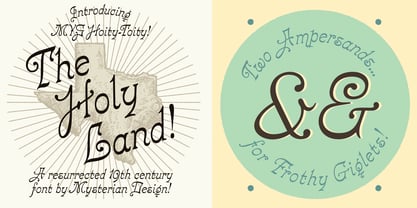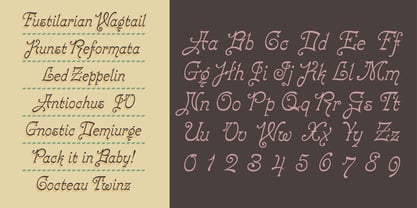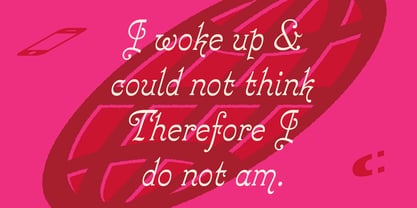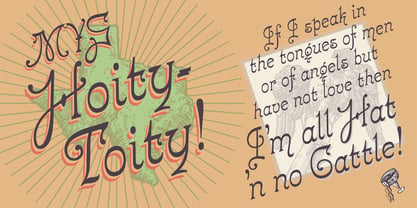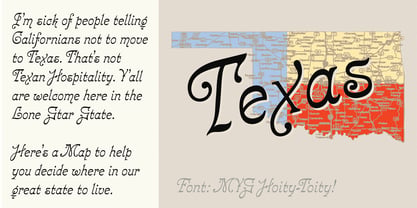
Hoity Toity
von MYSTERIAN
Die Schriftfamilie Hoity Toity wurde von Caleb East entworfen und von MYSTERIAN veröffentlicht. Hoity Toity enthält 1 Stile. Mehr über diese Familie
Hoity Toity is a contemporary revival inspired by a 19th-century specimen sheet. Developed from a single archival scan—weathered, incomplete, and beautifully imperfect—this design serves as both a reconstruction and reinterpretation. With limited reference material and missing characters, many glyphs were thoughtfully reimagined to extend the spirit of the original into a complete, functional typeface. Instead of strict historical replication, this revival strikes a balance between fidelity and creative interpretation, preserving the charm, texture, and idiosyncrasies of 19th-century letterforms while adapting them for modern applications. The result is a typeface that feels authentic yet refreshed: expressive in detail, grounded in tradition, and versatile for contemporary uses. Well suited for: - Heritage and vintage-inspired branding - Packaging and label design - Editorial headlines - Posters and print ephemera - Artisanal and craft-focused projects Character Set: - Uppercase & lowercase alphabet - Numerals - Basic punctuation & symbols - Two stylistic ampersand options
Designer: Caleb East
Foundry: MYSTERIAN